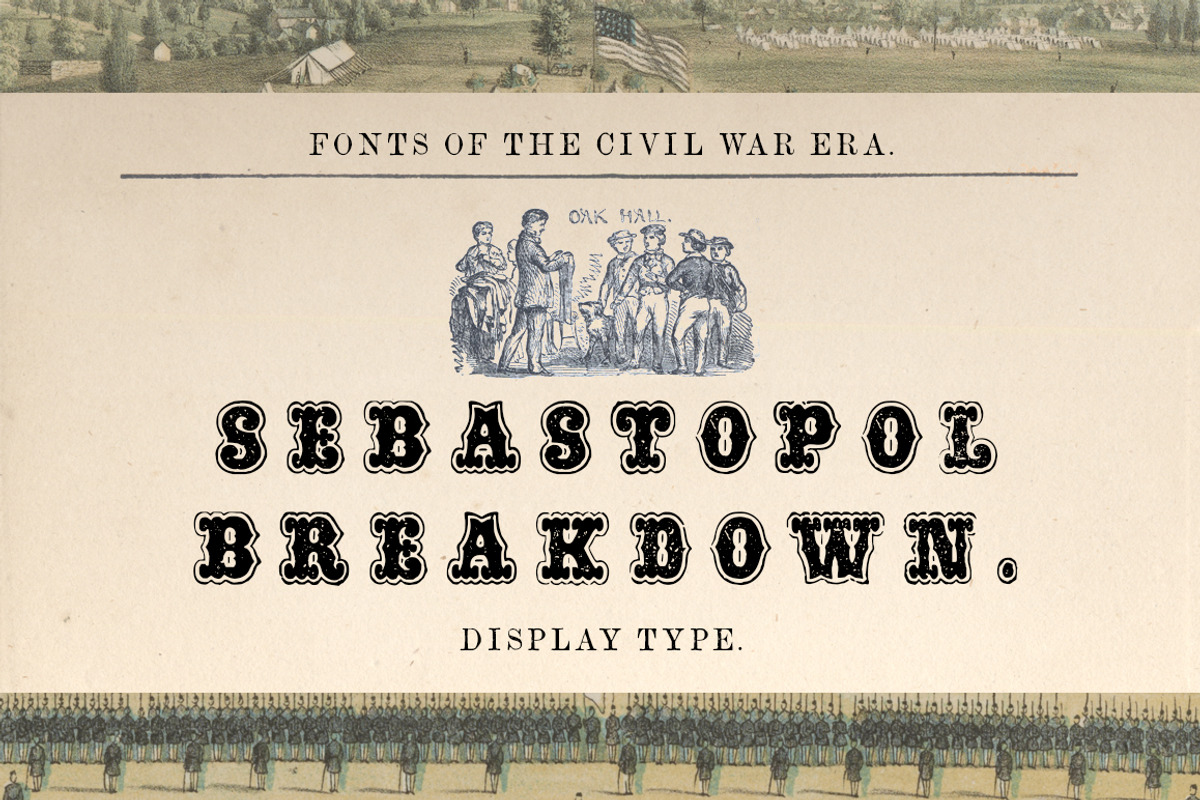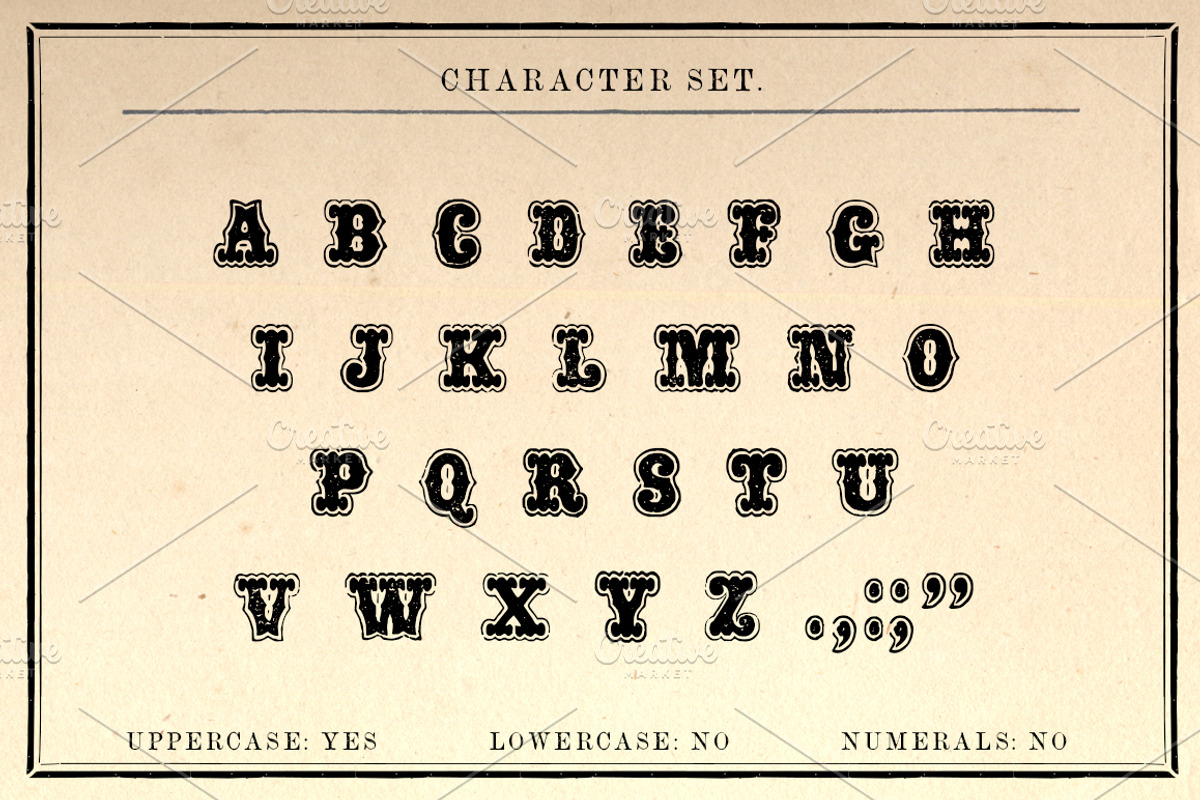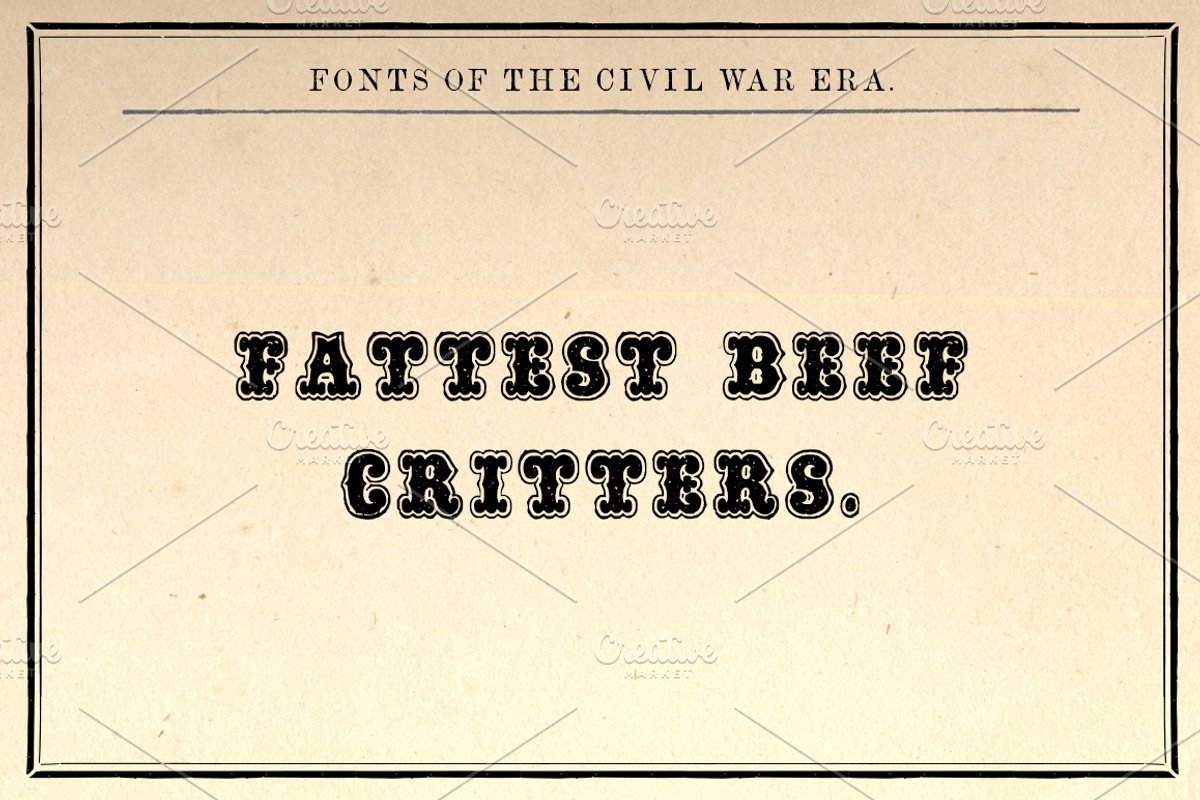
Sebastopol Breakdown Display Font
Sebastopol Breakdown Regular OTF is an ornamented serifed display font that comes from Volume 1 of The New Blazing Star Press's "Printer's Type Case."
This font is ideal for museums, historical reenactors and living historians, graphic designers, and all lovers of historical typography. Create stunning book covers, band logos and album art, and other high-impact branding projects. Also perfect for game design, packaging design, magazine imagery, wedding invitations, and much more.
- Unique Letterforms
The lowercase features a slight variant of the uppercase alphabet.
This font DOES NOT include LOWERCASE or NUMBERS, as they did not exist in the original font. Only basic punctuation is included.
It was very common for 19th century typesetters to use other fonts to substitute punctuation and numerals missing from a particular typeface.
Since they were scanned directly from the pages of original 150 year-old documents, the letters show imperfections common to letterpress printing.
WHAT'S BEHIND THE NAME "SEBSTOPOL BREAKDOWN"?
The Sebastopol Breakdown is a quirky banjo piece in 3/8 time printed in Tom Briggs’ 1855 Banjo Instructor. The alphabet was reconstructed from song sheets printed by George Magnus and from avertisements printed in the Boston Business Directory of 1863-64.
All of our Civil War-era historical fonts were copied entirely from ORIGINAL LETTERS scanned from type specimen, business directories, song sheets, broadsides, and advertisements, printed between 1848 and 1867 gathered from museums, private collections, and the Library of Congress. No cheap work done, but instead with a neatness not to be excelled in the Typographical Art.